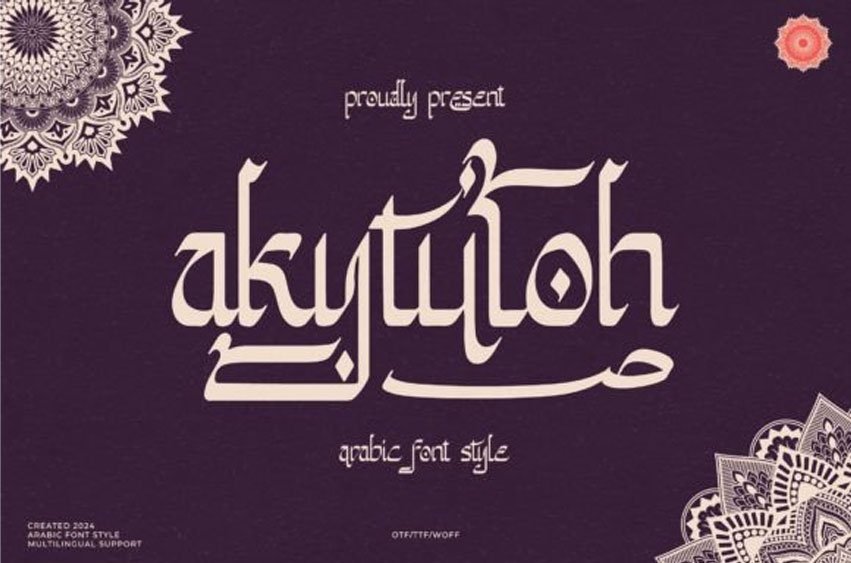
Akytuloh Font
Akytuloh Font is a stylish handwritten font with an Arabic flair.
It has flowing, elegant letters that look like they were carefully written by hand. Perfect for adding a touch of sophistication to your designs.